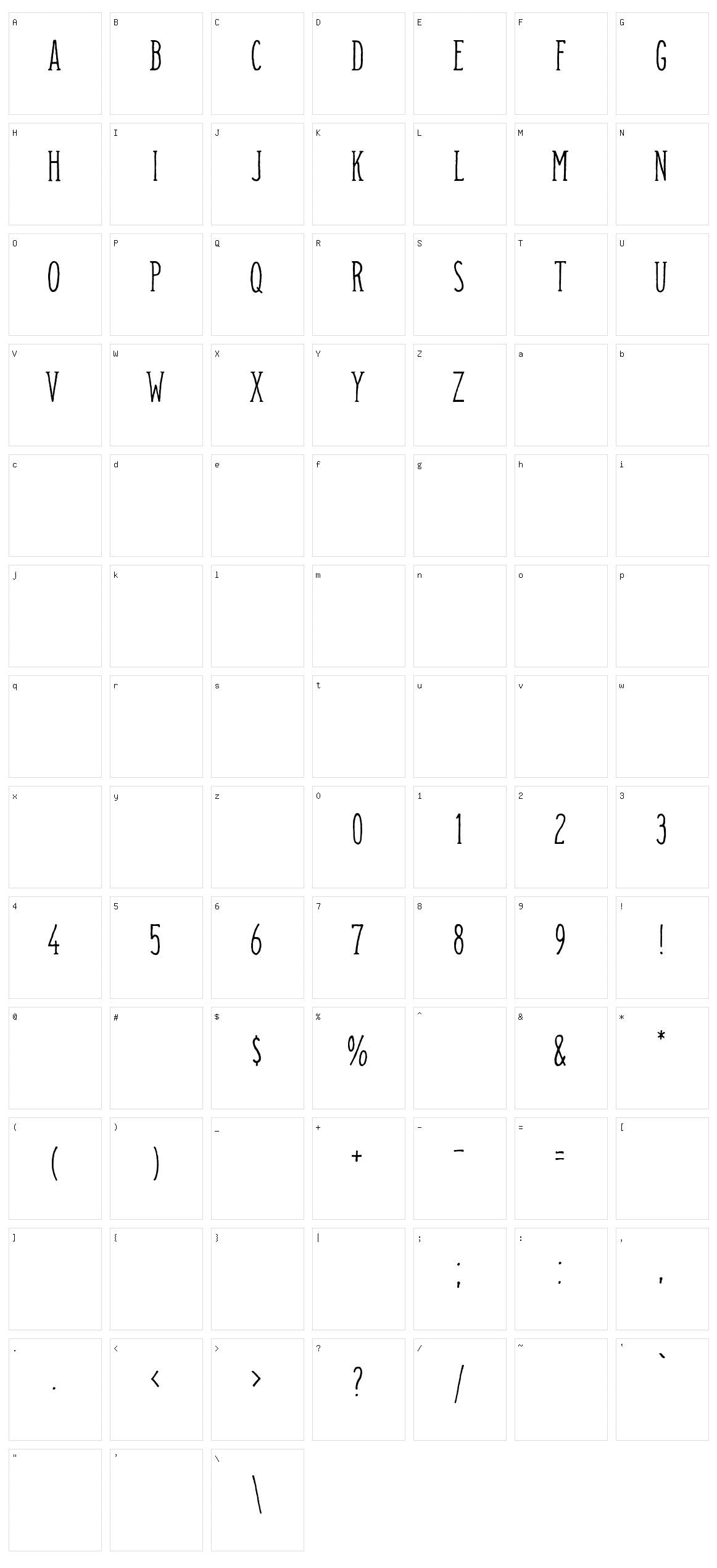
The free font Camargue Serif is carefully designed by HENRIavecunK, showcasing a thoughtful balance of creativity and usability and falls under the Eroded font style. When you download the ZIP file, it contains only 36.1 KB of font files, making it lightweight and quick to download. Please review the license details below to understand permitted usage and distribution rights. If license information is not available, we recommend using this font for personal projects only or contacting the author directly for commercial usage permissions.